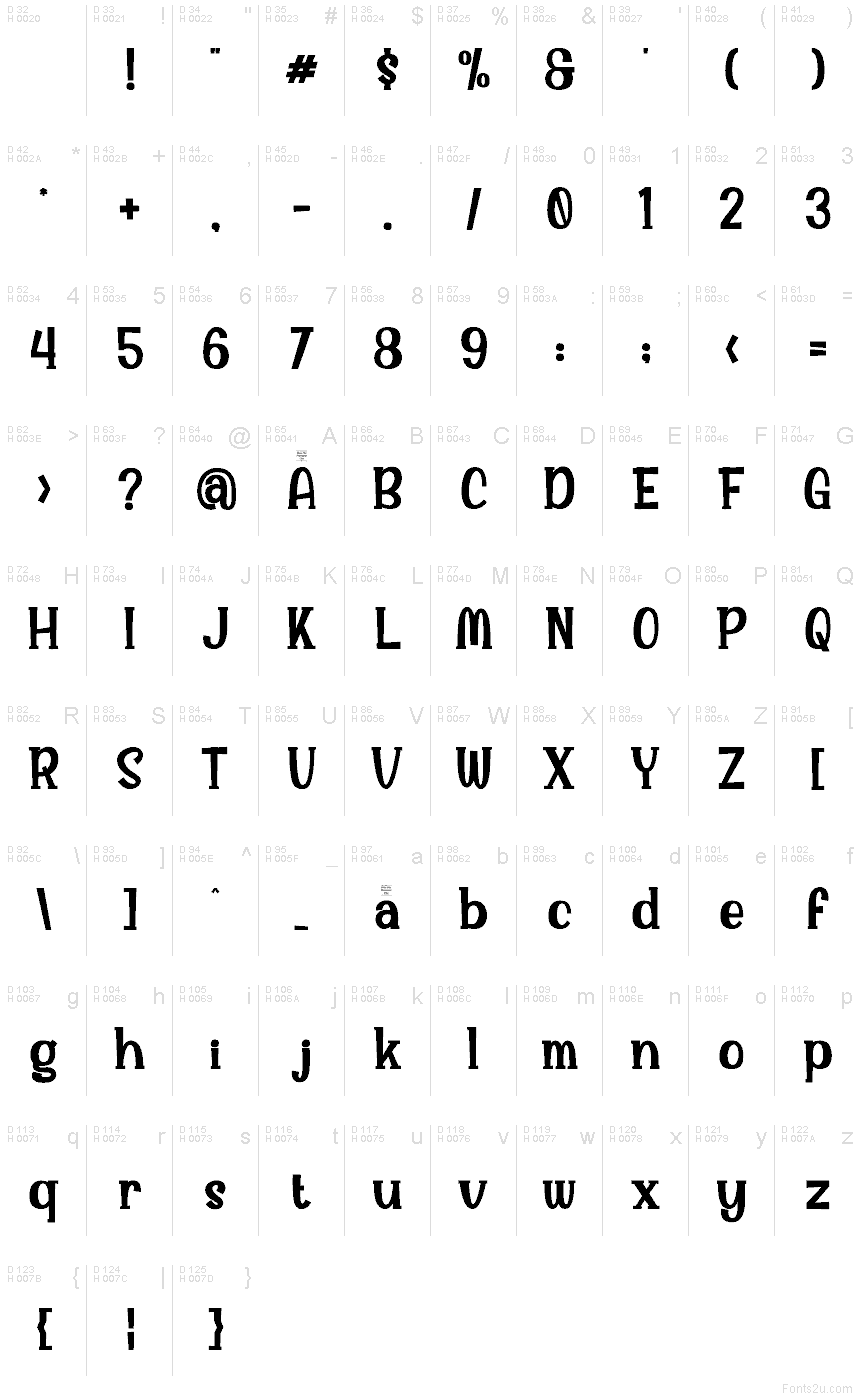
Sherlyn Revoga
Sherlyn Revoga font by Ermedia studio is a free decorative display serif font. Its defining feature is a lively, inky texture—soft wedge serifs, rounded notches, and gentle contrast that feels hand-pressed rather than machined. The rhythm is playful but controlled, giving headlines a tactile warmth that reads as crafted, not fussy.
Using Sherlyn Revoga, you’ll get standout logos, boutique packaging, book covers, cafe menus, event posters, invitations, and editorial pull quotes that need charm with clarity. This free font shines at larger sizes where its grain and curves can breathe. Pair it with a simple, unobtrusive sans for body copy, and let Sherlyn Revoga handle the spotlight work.